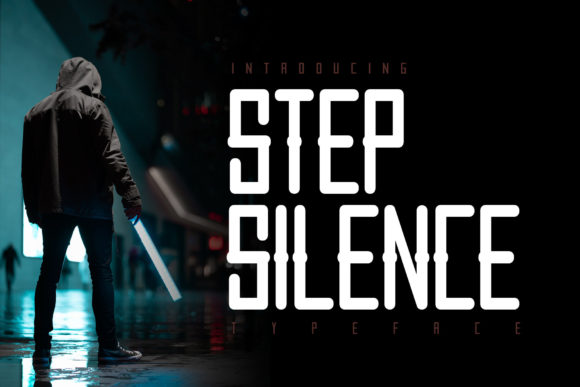
Prepare yourself to make a bold statement with Step Silence, a display font that exudes power and commands attention. With its dark and striking presence, Step Silence is not for the faint-hearted.
Unleash your creativity and let your designs roar with this font that's perfect for capturing the essence of strength, speed, and determination. Whether it's posters, logos, or headlines that demand to be seen, Step Silence will elevate your message to new heights.
Step into the realm of limitless possibilities, where your imagination knows no bounds. Let Step Silence be the voice that carries your vision, leaving an unforgettable mark on your audience.